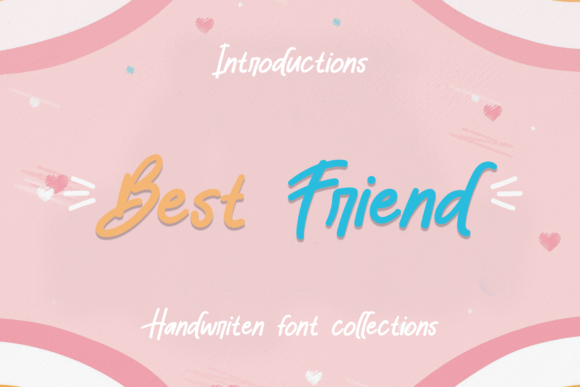
Introducing Best Friend Font: The Perfect Handwritten Font for Innocent-Looking Typography
Are you a designer or crafter looking for a font that exudes a sense of innocence and friendliness? Look no further than Best Friend Font! This beautiful handwritten font is perfect for projects that require a touch of warmth and approachability. In this article, we’ll dive into the features and benefits of Best Friend Font, and explore how it can elevate your designs and crafts.
What is Best Friend Font?
Best Friend Font is a carefully crafted handwritten font that is designed to evoke a sense of innocence and playfulness. Its friendly and inviting appearance makes it perfect for a wide range of projects, from wall displays and wedding invitations to social media post logos and product packaging.
Key Features of Best Friend Font
- Handwritten appearance: Best Friend Font has a beautiful, handwritten appearance that adds a touch of warmth and personality to any project.
- Innocent and friendly vibe: The font’s innocent and friendly vibe makes it perfect for projects that require a sense of approachability and playfulness.
- Versatile: Best Friend Font is suitable for a wide range of projects, including wall displays, wedding invitations, social media post logos, advertisements, product packaging, product designs, labels, photography, watermarks, invitations, stationery, and more.
Benefits of Using Best Friend Font
So why choose Best Friend Font for your next project? Here are just a few benefits of using this beautiful font:
- Adds a personal touch: Best Friend Font’s handwritten appearance adds a personal touch to any project, making it perfect for crafts and designs that require a sense of personality.
- Easy to read: The font is clear and easy to read, making it perfect for projects that require a high level of legibility.
- Customizable: Best Friend Font can be customized to fit your project’s specific needs, allowing you to adjust the font size, color, and style to suit your design.
Project Ideas Using Best Friend Font
So what can you create with Best Friend Font? Here are just a few project ideas to get you started:
- Wedding invitations: Best Friend Font is perfect for wedding invitations, adding a touch of romance and whimsy to your special day.
- Social media post logos: Use Best Friend Font to create eye-catching social media post logos that stand out from the crowd.
- Product packaging: Add a personal touch to your product packaging with Best Friend Font, making your products more appealing to customers.
- Wall displays: Create beautiful wall displays with Best Friend Font, perfect for showcasing your favorite quotes, lyrics, or poems.
- Invitations and stationery: Use Best Friend Font to create custom invitations and stationery that add a touch of personality to your correspondence.
Tips for Using Best Friend Font
Here are a few tips for getting the most out of Best Friend Font:
- Experiment with font sizes: Best Friend Font looks great in a variety of font sizes, so don’t be afraid to experiment to find the perfect size for your project.
- Pair with other fonts: Best Friend Font pairs well with other fonts, so try combining it with other fonts to create a unique and interesting look.
- Use in combination with images: Best Friend Font looks great in combination with images, so try using it to add text to your favorite photos or illustrations.
In conclusion, Best Friend Font is a beautiful and versatile handwritten font that is perfect for projects that require a touch of innocence and friendliness. With its clear and easy-to-read appearance, Best Friend Font is suitable for a wide range of projects, from wall displays and wedding invitations to social media post logos and product packaging. Whether you’re a designer or crafter, Best Friend Font is a great choice for adding a personal touch to your designs and crafts.